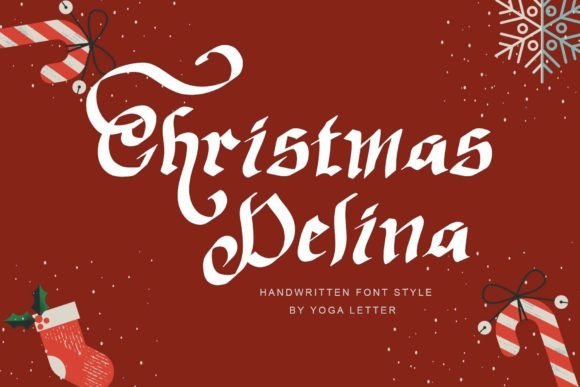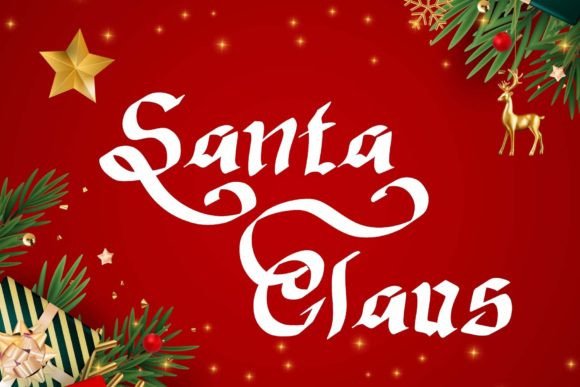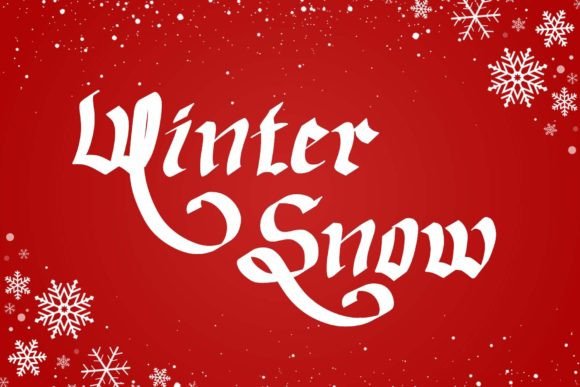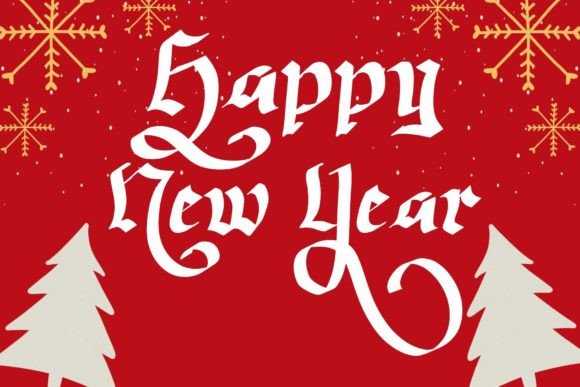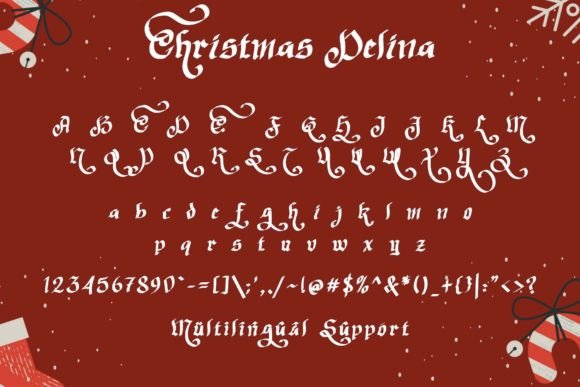
Unwrapping the Magic of Christmas Delina Font
There’s something special about the moment when the lights are turned off, and the room is bathed in the warm glow of twinkling Christmas lights. It’s a time for creativity to shine, and for ideas to flow freely. For designers, it’s a moment to tap into the holiday spirit and let their imagination run wild. And what better way to capture that magic than with the perfect font?
Enter the Christmas Delina Font, a beautiful and elegant handwritten font that adds a touch of natural charm to any design. With its unique style, this font is the perfect companion for designers looking to create something truly special. Whether you’re crafting holiday cards, designing festive decorations, or creating a seasonal brand identity, the Christmas Delina Font is sure to bring a smile to your face and a touch of holiday cheer to your designs.
Christmas Delina Font Key Features
- Font Style: Script, Handwritten, Christmas-themed
- Unique Characteristics: Decorative flourishes, festive ornaments, and holiday-themed symbols
Christmas Delina Font Review
I was excited to dive into the Christmas Delina Font, and I must say, it has some lovely qualities that make it a great addition to any holiday design project. ✨ The font’s playful and whimsical feel is perfect for capturing the magic of Christmas. The letterforms are intricate and detailed, with a beautiful, hand-drawn quality that adds a personal touch.
The font’s character set is also quite extensive, making it suitable for a wide range of applications, from posters to greeting cards. ✨ The font’s weight range is also quite versatile, allowing designers to achieve the perfect balance between bold and delicate looks.
- ⚠️ The font may not be suitable for larger text sizes due to its intricate details, which can become difficult to read.
- ⚠️ The font’s unique, hand-drawn quality may not appeal to all designers, particularly those who prefer more modern or minimalist designs.
- ⚠️ The font may not be as legible in certain fonts or color combinations, which can affect its overall readability.
Overall, I think the Christmas Delina Font is a great choice for designers looking to add a touch of holiday magic to their projects. While it has some limitations, its unique qualities and extensive character set make it a valuable addition to any design library.
Use the Christmas Delina Font for holiday-themed projects, such as:
Christmas card designs
Winter wonderland invitations
Seasonal social media graphics
For best results, use the font in conjunction with festive colors and patterns to create a cohesive and eye-catching design.
Alternatives to Christmas Delina Font
Great Vibes Font is a beautiful, handwritten script font that can be used for various festive occasions. It has a unique, elegant feel that can add a touch of sophistication to your designs.
Comparison to Christmas Delina Font: Great Vibes Font has a more refined and elegant feel compared to Christmas Delina Font, which has a more playful and whimsical feel. Great Vibes Font is suitable for designs that require a more subtle and understated approach.
Carolyna Pro Font is a modern, elegant font that is perfect for festive designs. It has a sleek and sophisticated feel that can add a touch of luxury to your designs.
Comparison to Christmas Delina Font: Carolyna Pro Font has a more modern and sleek feel compared to Christmas Delina Font, which has a more traditional and vintage feel. Carolyna Pro Font is suitable for designs that require a more contemporary and stylish approach.
Alex Brush Font is a beautiful, handwritten script font that is perfect for festive designs. It has a unique, elegant feel that can add a touch of sophistication to your designs.